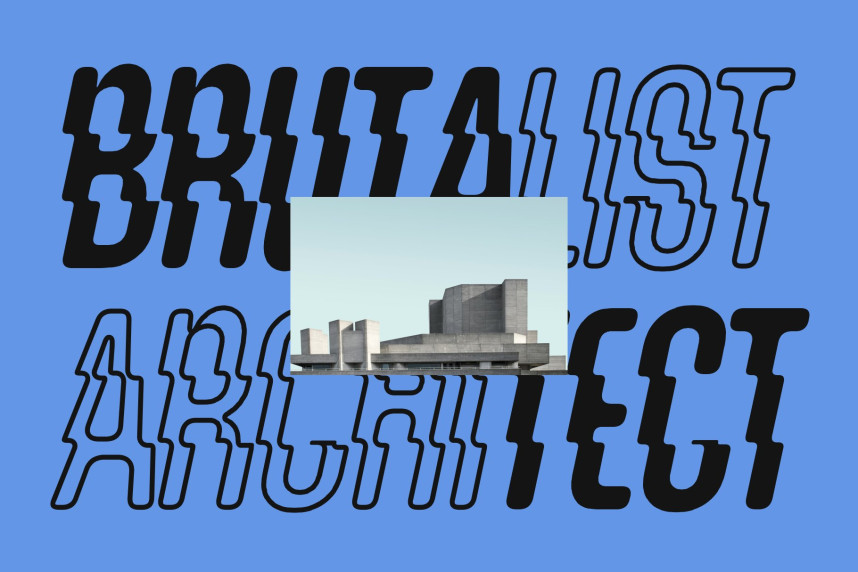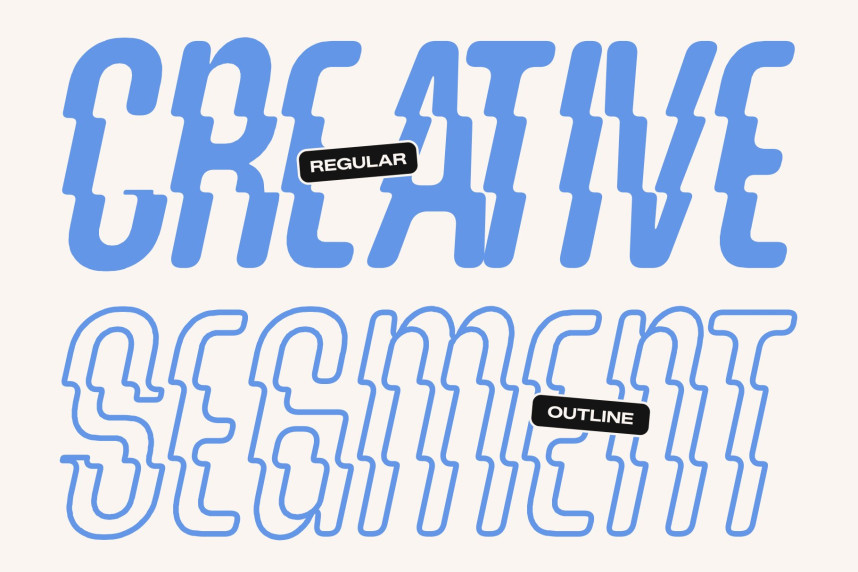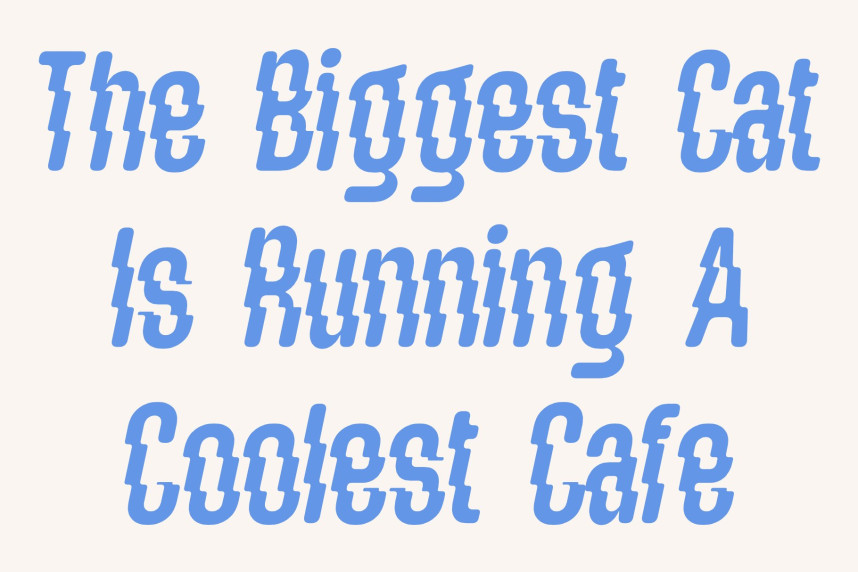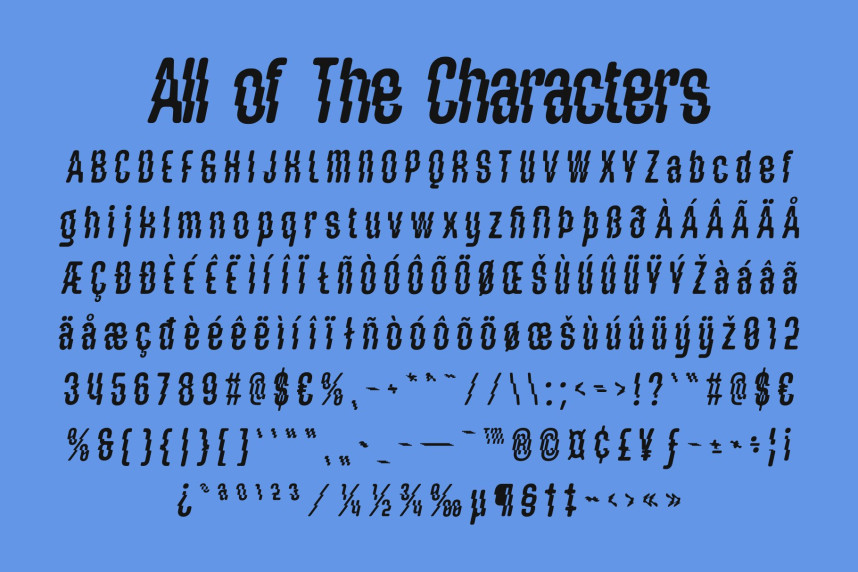
CS Geraint Rippled Font
CS Geraint Rippled Font – Modern Condensed Display Font: Where Bold Impact Meets Fluid Motion
Bold Personality with Condensed Precision
This is a modern condensed display font designed to make a strong statement through its bold personality and streamlined proportions. Its tall, compact letterforms create a powerful visual presence while maximizing space efficiency, making it ideal for attention-grabbing typography. The condensed structure delivers a contemporary, confident look that feels both dynamic and purposeful.